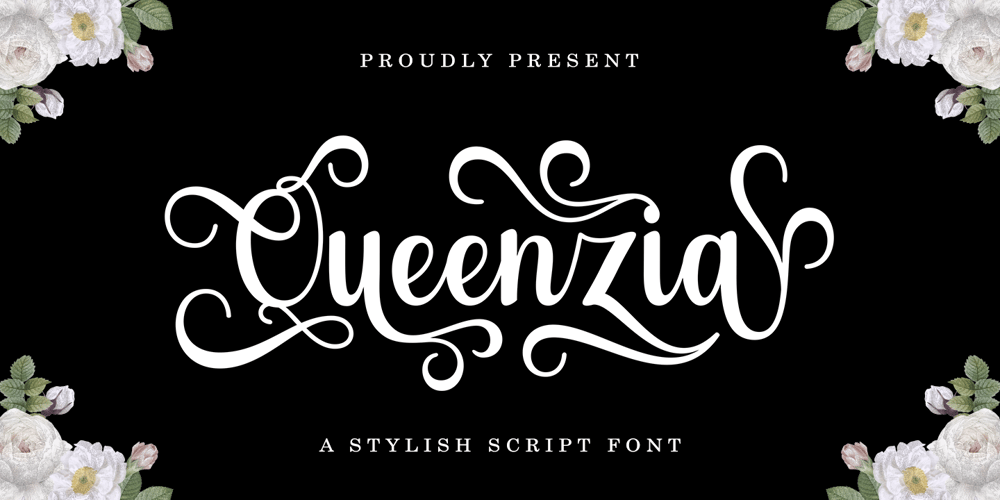
Queenzia
Queenzia font
Queenzia Font Family was designed by Muhajir and published by Skinny Type. Queenzia contains 1 styles and family package options. Queenzia is a new fresh & modern script with handcrafted calligraphy styles, decorative characters and dancing baselines! So beautiful in invitations like greeting cards, branding materials, business cards, quotes, posters and more !!Queenzia came with 330 glyphs. Alternative characters are divided into several Open Type features such as Swash, Stylistic Sets, Stylistic Alternates, Contextual Alternates. The Open Type feature can be accessed using programs that understand Open Type such as Adobe Illustrator, Adobe InDesign, Adobe Photoshop Corel Draw X version, and Microsoft Word. And this Font has provided PUA unicode (custom coded font). so that all stunt characters can be easily fully accessed by a craftsman or designer.Queenzia:Uppercase & Lowercase International Languages ​​& Symbols Support Punctuation & Numbers Unicode Ranges PUA Standard Alternative Style Alternatives Set Style 1-8 Character Contextual Variants. The files include the following:If you don’t have a program that supports OpenType features such as Adobe Illustrator and CorelDraw X Version, you can access all alternative glyphs using Font Book (Mac) or Character Map (Windows).To Access Alternative Characters Click The Link Below:Adobe Illustrator CS https://www.youtube.com/watch?v=geL0Ye02RykAdobe Illustrator CC https://www.youtube.com/watch?v=V25yiUh8BcEMs Word https://www.youtube.com/watch?v=HxkhZiCuwEwCoreldraw X7 https://www.youtube.com/watch?v=UBVsufJjonsAdobe Photoshop CC https://www.youtube.com/watch?v=BYKXl58AdNYIndesign CS https://www.youtube.com/watch?v=HgZTCxKG14QThank you and happy designing :-)Thank you for purchasing!